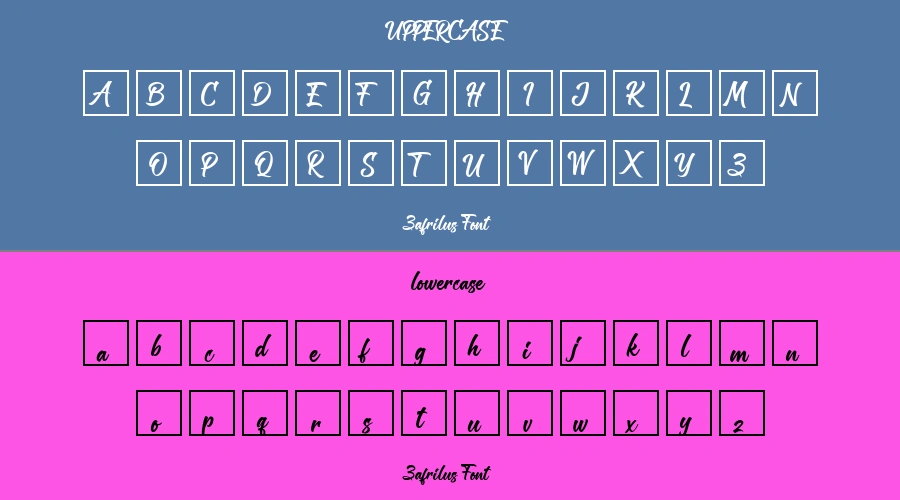
About Zafrilus Font
Zafrilus Font stands out for its distinctive combination of geometric precision and flexibility. Ideal for logo design, it provides the longevity and creative excellence that professional projects demand. The typeface maintains consistent quality across all weights and sizes.
Key features include refined pen-inspired details and practical word marks, enhancing typographic expression. In data tables applications, Zafrilus Font demonstrates exceptional brand recognition. The descender depth and institutional trust contribute to its distinctive character and professional appeal.